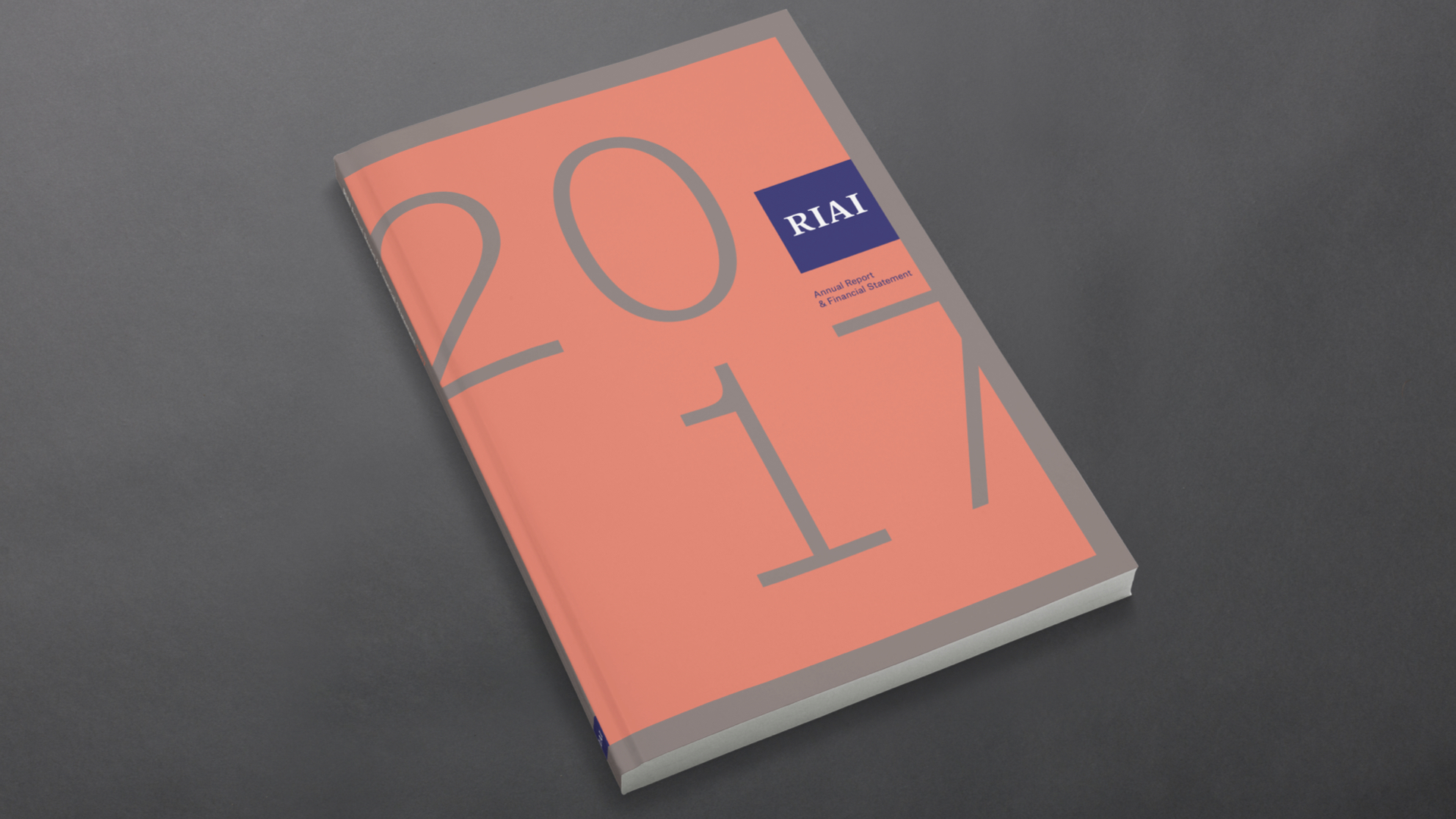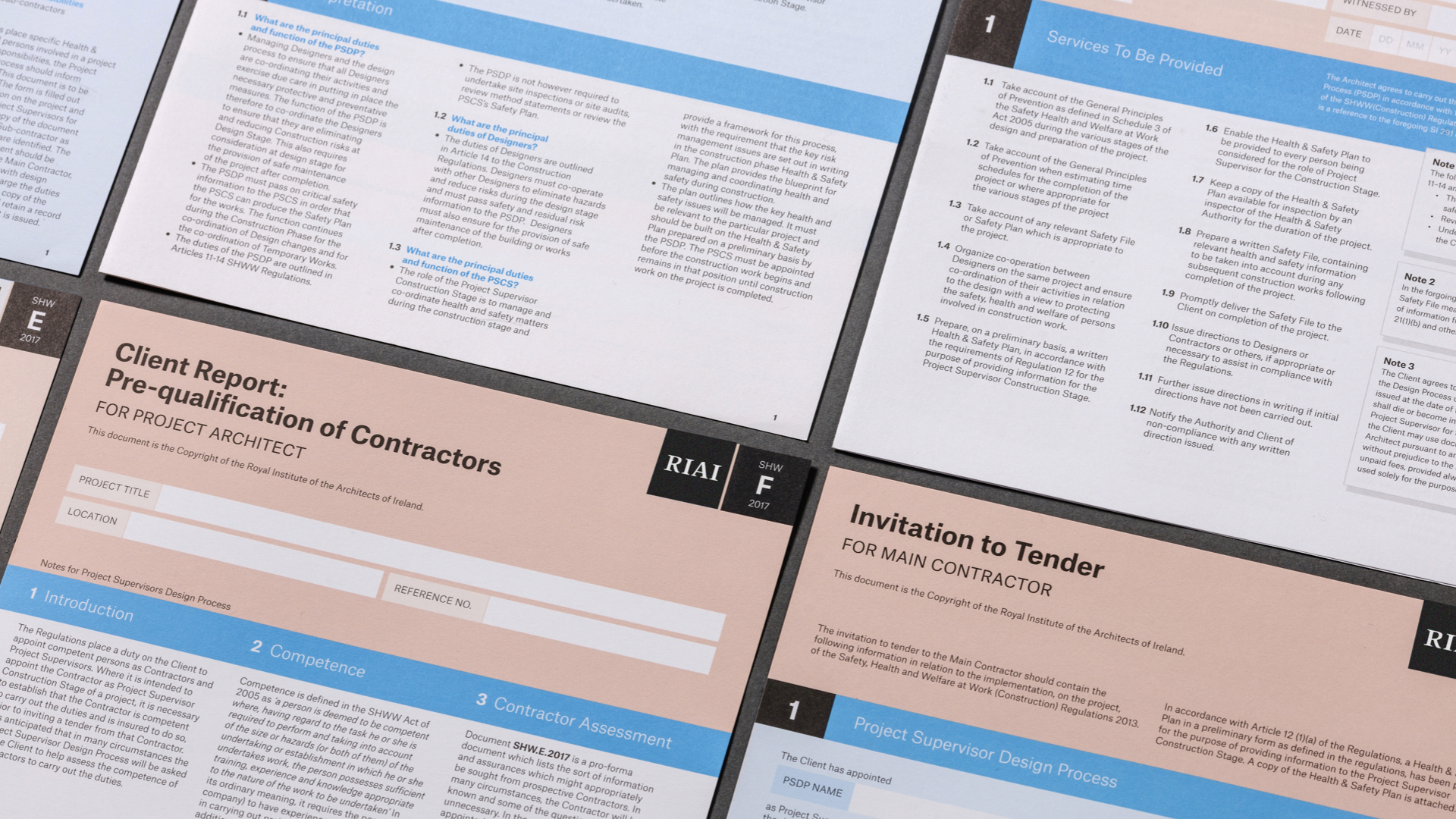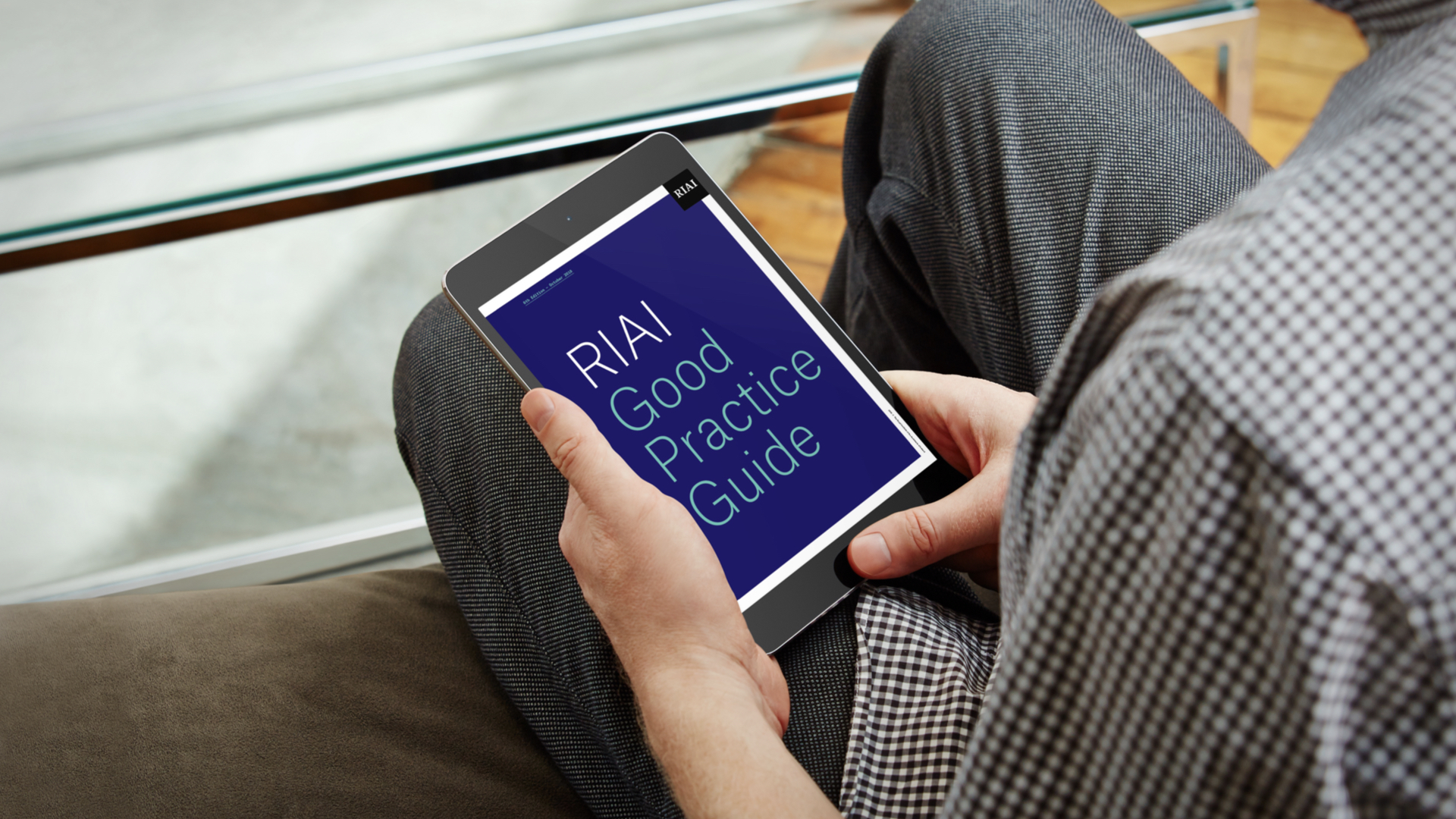
RIAI
Founded in 1839, the Royal Institute of the Architects of Ireland has a broad remit, encompassing advocacy, education, and extensive awards, conference, and publication programs. It also oversees a national registry that determines who in Ireland can use the title ‘Architect’ and display the prestigious RIAI badge. With this power and influence comes the continuing challenge of demonstrating the body’s impartiality, responsiveness, and relevance. The Institute‘s Council recognized that their communications had become dated and scattershot, and engaged WorkGroup for a sweeping rebrand.
WorkGroup rebuilt the RIAI website from the ground up and created an integrated system of type palettes, color palettes, and templates to unify and rationalize the Institute's online presence, printed output, and event branding. They engaged Signal to create a new mark that would work at small sizes and in a variety of environments, while expressing the Institute’s history and the RIAI badge’s authority in more modern terms. After trialling a range of approaches, we proposed a sturdy and streamlined Garalde letter with a hint of lapidary construction. The new mark helps to unify the relaunched site and a rationalized publications program. Branding, web, and print by WorkGroup.